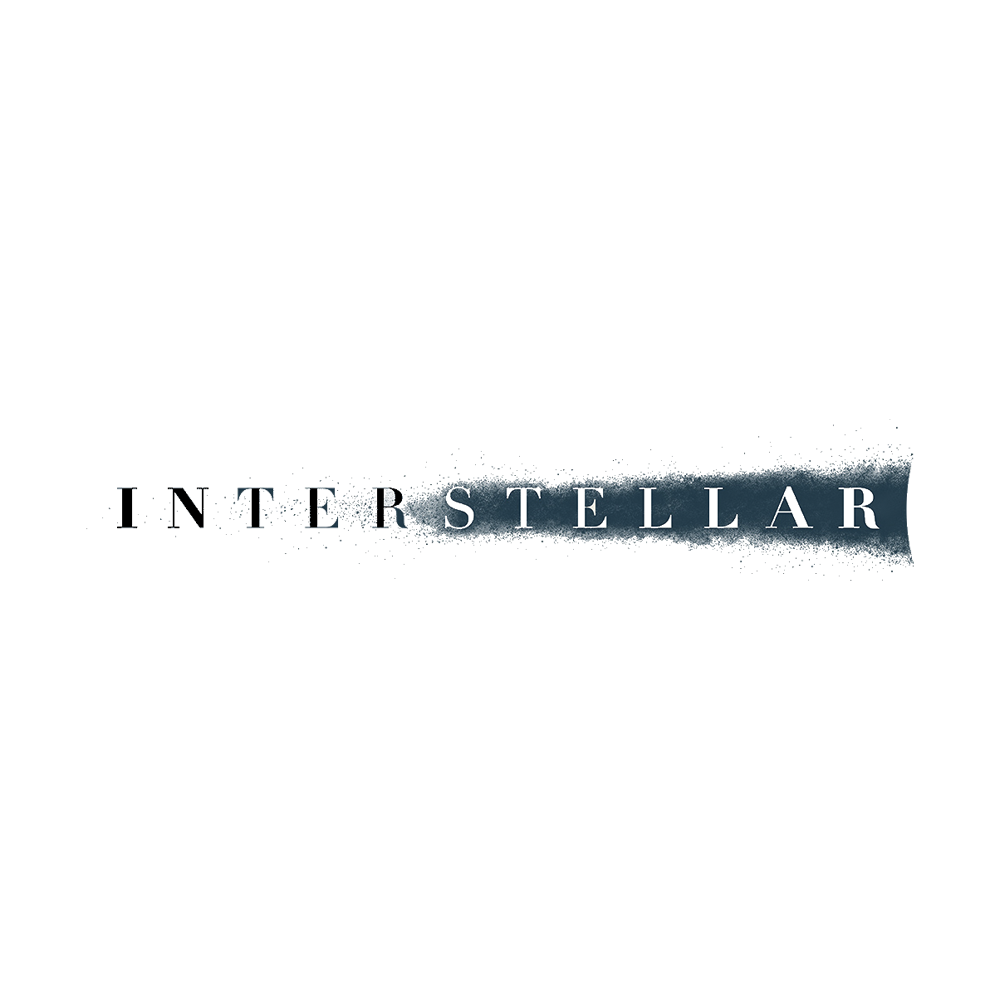
Interstellar Font
Movie & TVInterstellar is a science fiction film directed by Christopher Nolan that explores humanity's search for a new habitable planet as Earth faces ecological collapse. The story follows a team of astronauts traveling through a wormhole near Saturn, grappling with themes of love, time, and the survival of the human race.
The Interstellar font primarily used in the movie's logo is Linotype Didot Pro Bold, designed by Adrian Frutiger and published by Linotype. This font is characterized by its elegant serif style, which complements the film's themes of space and time. The logos design features a distinctive effect with two contrasting shadows, enhancing its visual appeal and connection to the film's multidimensional narrative.